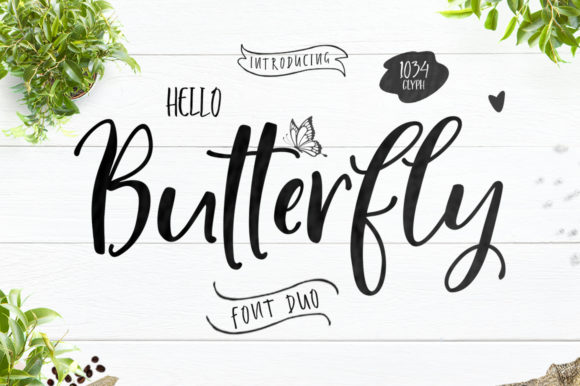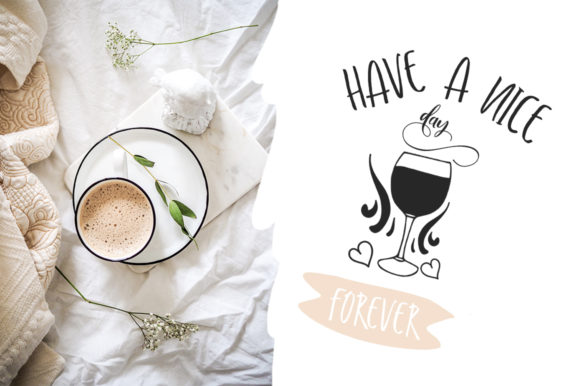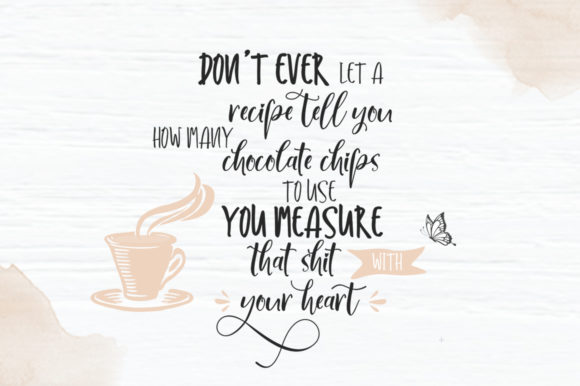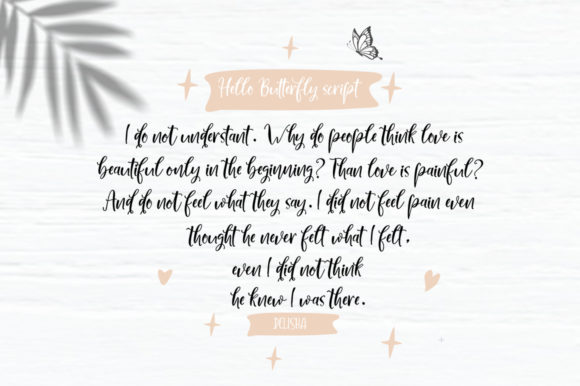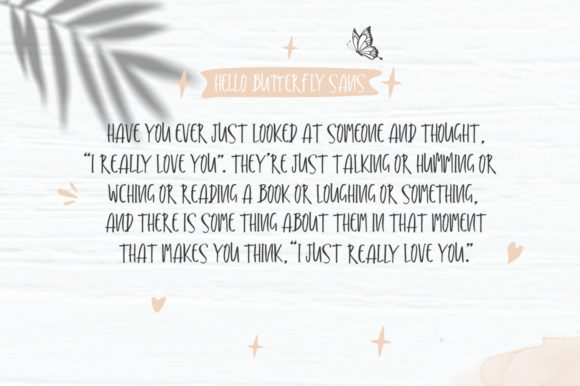
Hello Butterfly Duo Font
About Hello Butterfly Duo Font
Hello Butterfly is an incredibly light and charming handwritten font duo featuring a wide range of amazing swashes. It will add an authentic and personal twist to any crafts project!